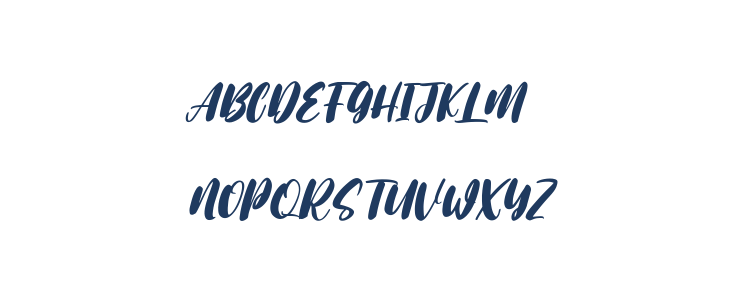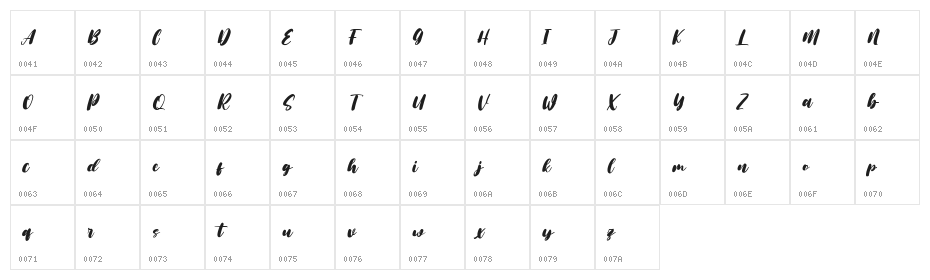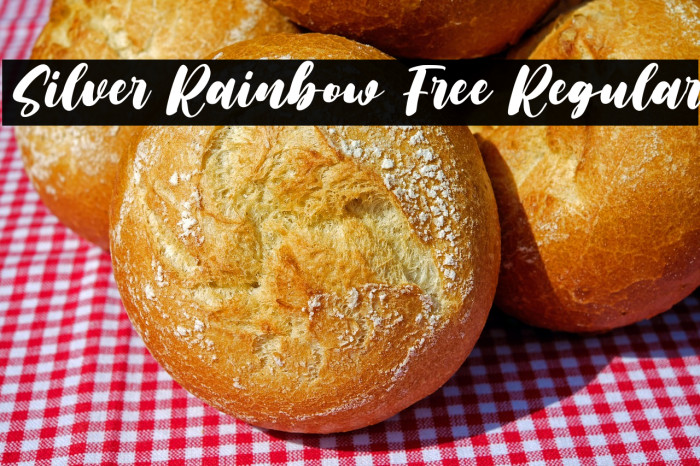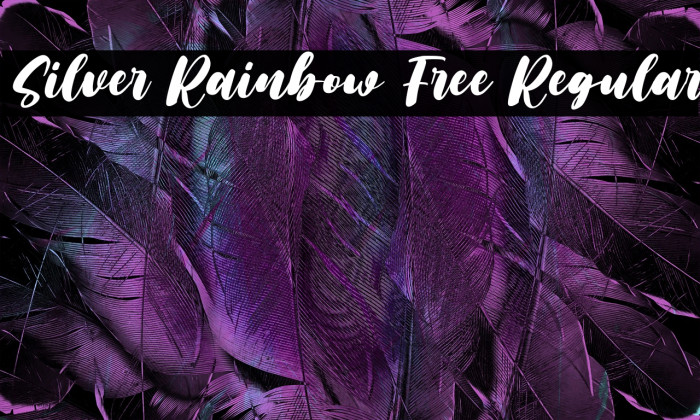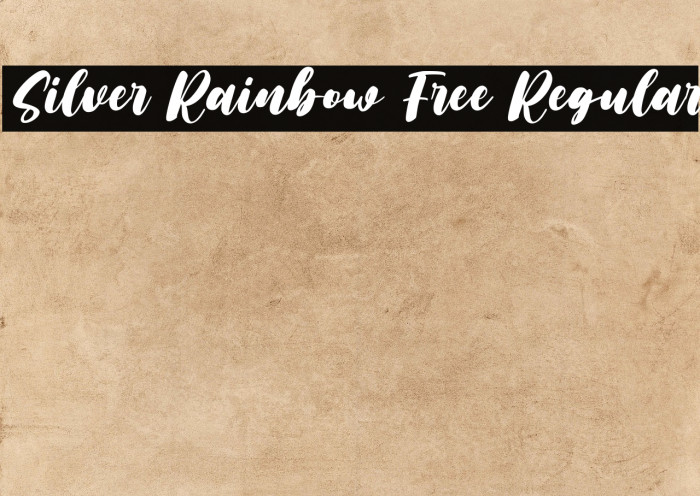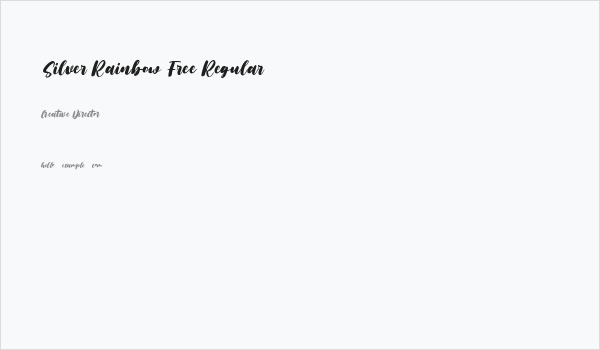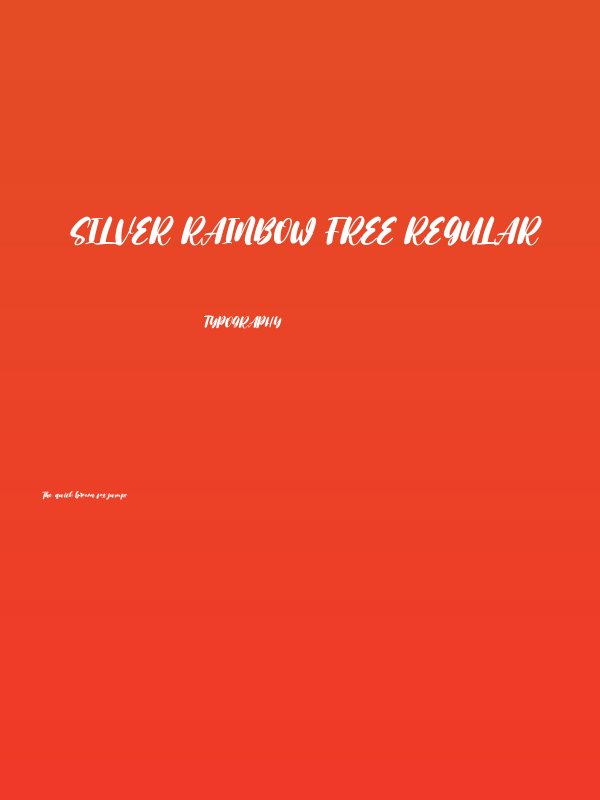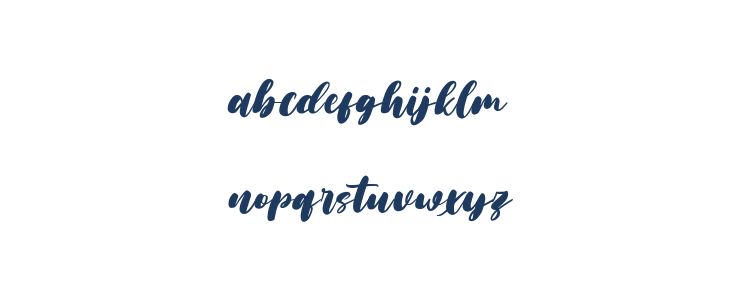
Silver Rainbow Free Regular Font
Silver Rainbow Free Regular Description
A cursive, script style font with a flowing, handwritten appearance, characterized by smooth, connected strokes and a slightly slanted form.